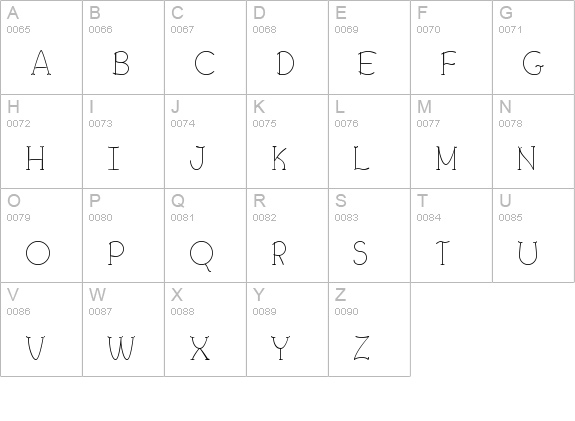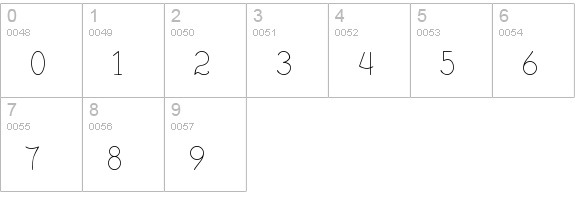
Febdrei Font Details
Introducing Febdrei font, a modern and stylish typeface that is perfect for adding a touch of sophistication to your designs. This versatile font features clean lines and a sleek appearance, making it ideal for a wide range of projects. Whether you're designing a logo, creating branding materials, or crafting eye-catching headlines, Febdrei font is sure to make a bold statement. What's even better is that Febdrei font is available for free! Yes, you heard that right - this high-quality font can be downloaded at no cost from FontsMarket.com. So go ahead and elevate your designs with Febdrei font today.